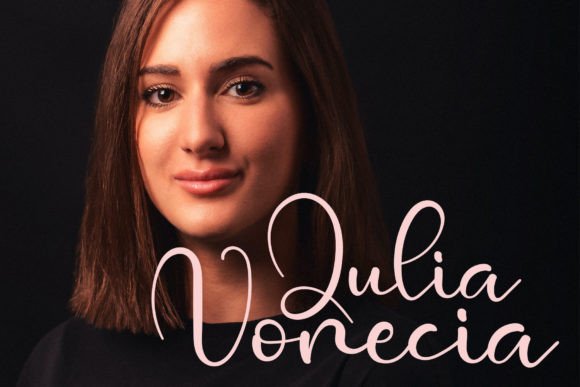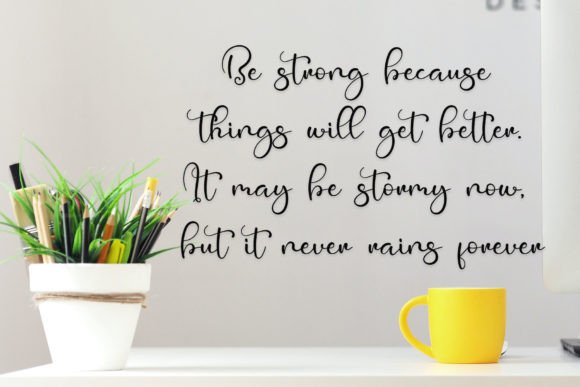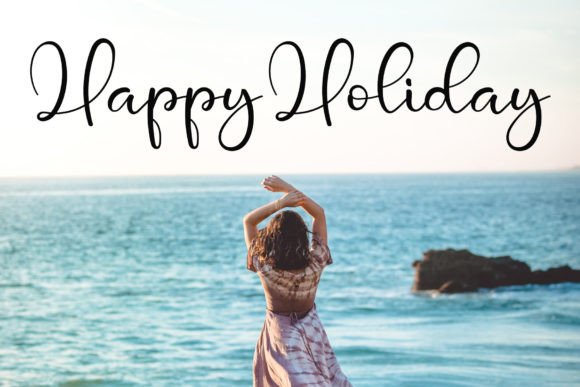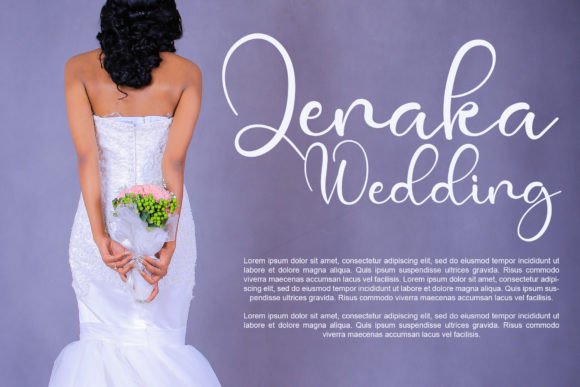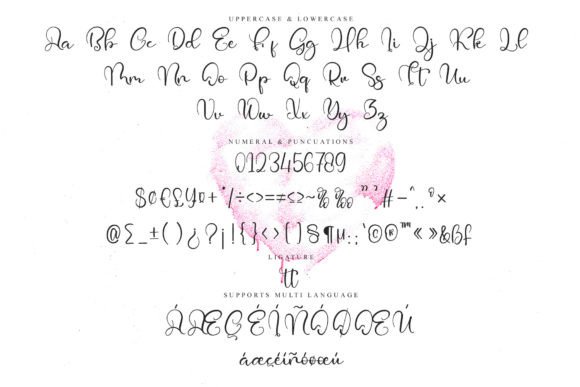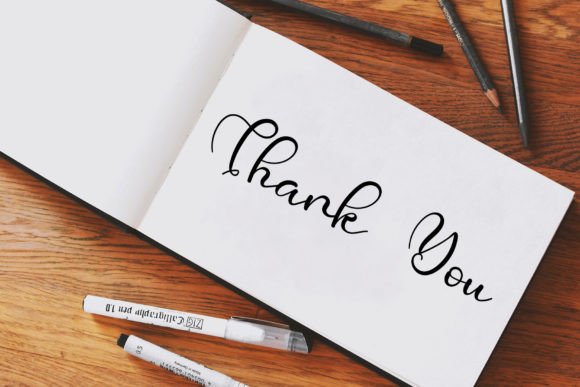
Discover the Timeless Charm of Beauty Valentine Font
Have you ever stumbled upon a font that transports you to a world of elegance and sophistication? For me, it’s those moments when a beautiful font sparks a creative idea, and everything falls into place. Perhaps it’s the way the letters dance on the page, or the subtle nuances that evoke a sense of luxury. Whatever it is, it’s a feeling that’s hard to replicate, but one font that comes close is the stunning Beauty Valentine Font.
Designed to evoke the timeless charm of classic calligraphy, Beauty Valentine Font is a stylish handwritten font that adds a touch of sophistication to any project. With its balanced and varied design, it’s the perfect choice for designers looking to create a unique and captivating visual identity. Whether you’re working on a romantic wedding invitation, a luxury brand campaign, or a personal blog, Beauty Valentine Font is sure to elevate your design to new heights.
Beauty Valentine Font Key Features
- Font Style: A beautiful, elegant script font with a touch of romance and femininity.
- Unique Characteristics: Distinctive, flowing connections between letters, and a subtle flair at the ends of strokes, giving it a unique and eye-catching appearance.
Beauty Valentine Font Review
Overall, I found the Beauty Valentine Font to be a visually appealing addition to any design project. It’s perfect for those looking to add a touch of romance and whimsy to their work.
Here are a few things that really shine: ✨ Unique and playful characters, ✨ Beautiful swashes and flourishes, and ✨ Great for use in invitations, greeting cards, and other romantic-themed designs.
However, there are a few limitations to keep in mind: ⚠️ Limited language support, ⚠️ May not be suitable for body text due to its ornate nature, and ⚠️ Can be difficult to read at smaller font sizes.
Here are a few specific scenarios where the Beauty Valentine Font excels:
- Anniversary and birthday cards
- Valentine’s Day-themed designs
- Wedding-related branding and marketing materials
Overall, I would recommend the Beauty Valentine Font for projects that require a touch of elegance and romance. While it may not be suitable for all design needs, it’s a great addition to any designer’s toolkit.
Tips for Getting the Most Out of the Beauty Valentine Font
Use the Beauty Valentine font for designs that require a romantic and feminine touch.
Pair the font with pastel colors and floral patterns for a cohesive look.
Experiment with different font sizes and styles to add visual interest to your design.
The Beauty Valentine font is commonly used for:
Birthday cards and party invitations.
Valentine’s Day designs and promotions.